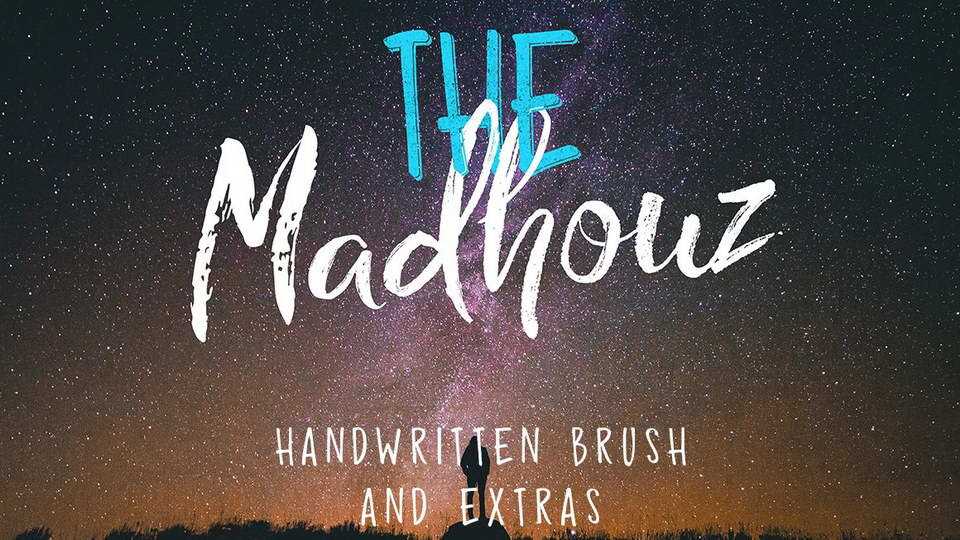
Download Madhouz font, a rough brush script created by stylized handwriting with clearly visible charms and passion. Madhouz script can be used for headings, signature, logos, t-shirt, etc.